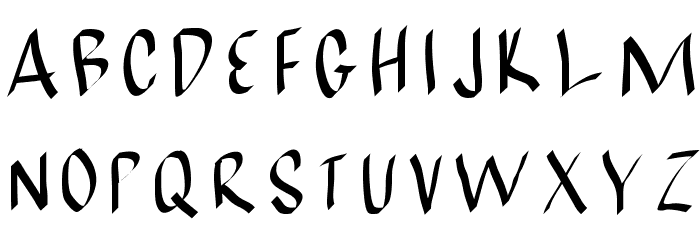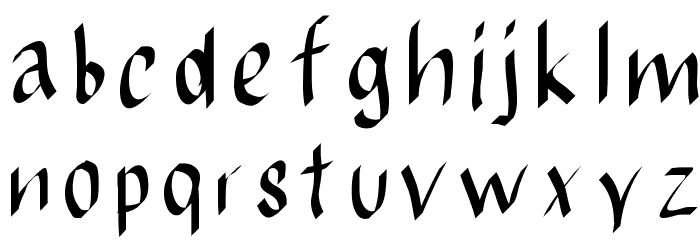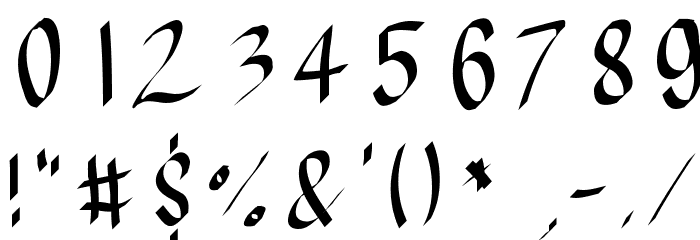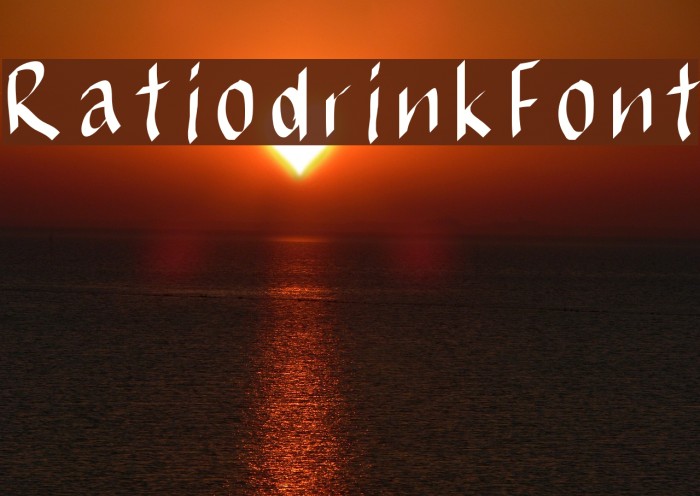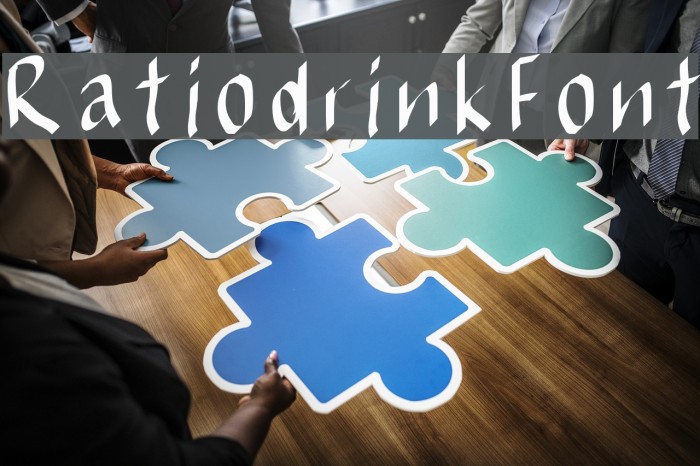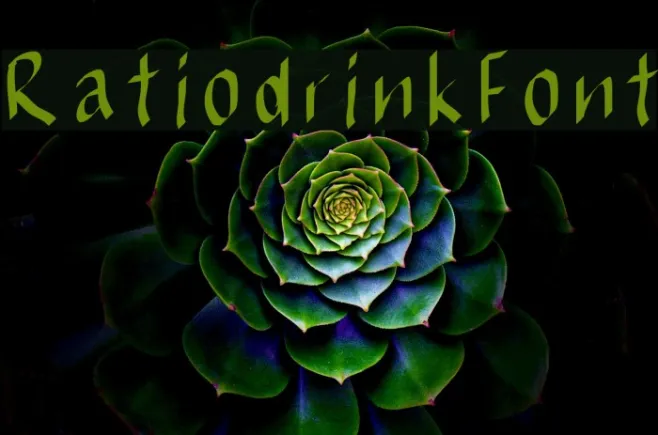
RatiodrinkFont Font
This font features a dynamic and expressive style with a handwritten appearance. The characters exhibit a fluid and slightly irregular form, giving them a lively and artistic feel. The uppercase letters are bold and prominent, while the lowercase letters maintain a consistent flow, enhancing readability. The numbers are distinct and align well with the overall aesthetic. Special characters are creatively integrated, maintaining the font's unique style. This font's energetic and artistic nature makes it suitable for creative projects that require a personal touch.
A dynamic, handwritten-style font with expressive and artistic characters.
- Proposed Projects: Ideal for creative projects such as invitations, greeting cards, artistic posters, and branding materials that require a personal and artistic touch.
- Overall Style: Artistic
- Use Case: Logos, Headlines, Artistic projects